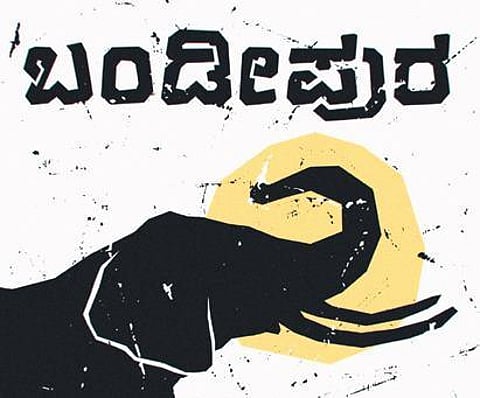
Type designer gives Kannada language new font in form of Bandipura
Speaking to TNIE, the 34 year old said he began drawing Kannada letters at the age of 10. He continued to be fascinated with paintings and letter design even during his school days.
BENGALURU: Trumpet it out, Kannada gets a new font, Bandipura, inspired by the elephant. Developed by Manjunatha R, an independent type designer and a conceptual photographer from T Narasipura in Mysuru district, the font has letters that resemble the characteristics of an elephant, with sharp edges and irregular thickness. It is an informal display typeface in "Kannada and Latin script", which is ideal for large sized headlines, banners and titles.
Speaking to The New Indian Express, the 34 year old said he began drawing Kannada letters at the age of 10. He continued to be fascinated with paintings and letter design even during his school days. He then took to digital typeface design and started his own type foundry called "Akshara Type Studio".
A keen observer, he wanted to develop a font that looked different from others, like Google-Benne, Noto Sans, Baloo Tamma and Akaya Kanadaka. He was aiming at designing a font that could be used in big size and that also supported all languages.
"Being a graphic designer, I have customised existing fonts to make logos, headlines and others. But I thought I should make my own font that looked different and big. Immediately, the elephant came to my mind. If you observe the Bandipura font, each letter has uneven, sharp curves like that of an elephant’s trunk, tusks, small eyes etc," he said.
He worked for nearly one-and-a-half years on the font and released it on Sankranti day. Manjunatha, who has a passion to create his own font library, said, "As Bandipura is in Unicode, all letters are available. It supports 125 languages, including Latin and Swahili. I have also used Halegannada (old Kannada) in some of the letters," he said.